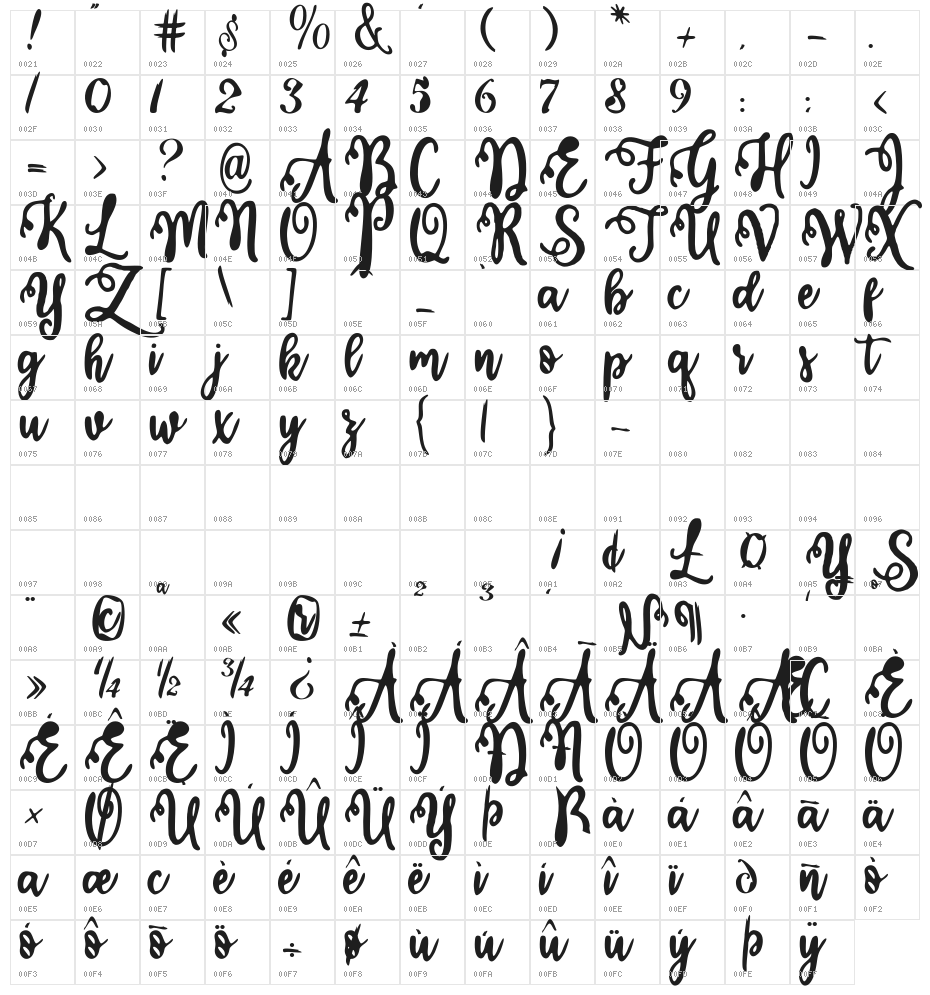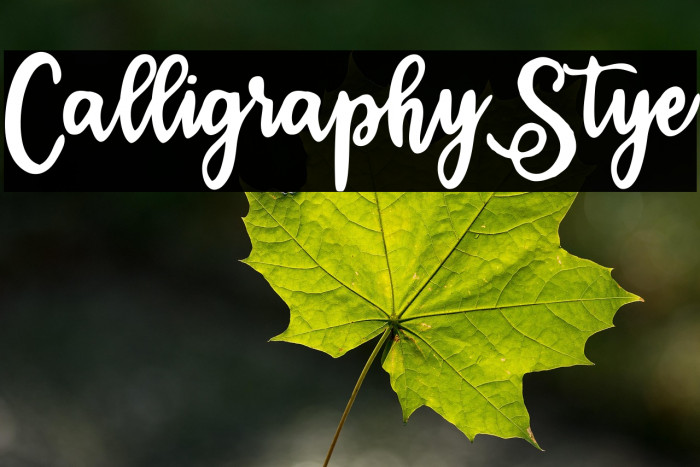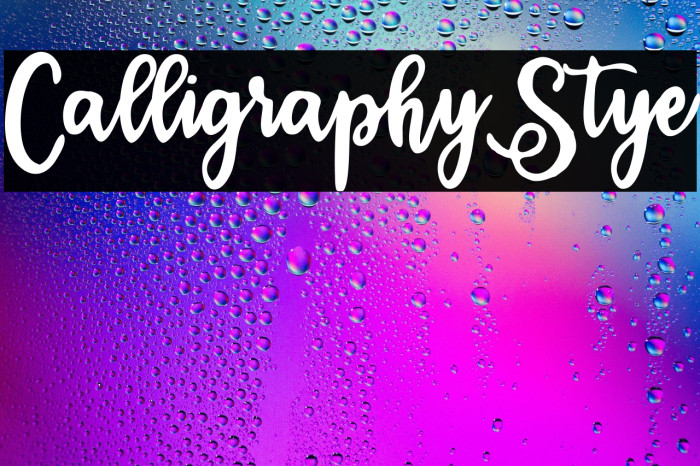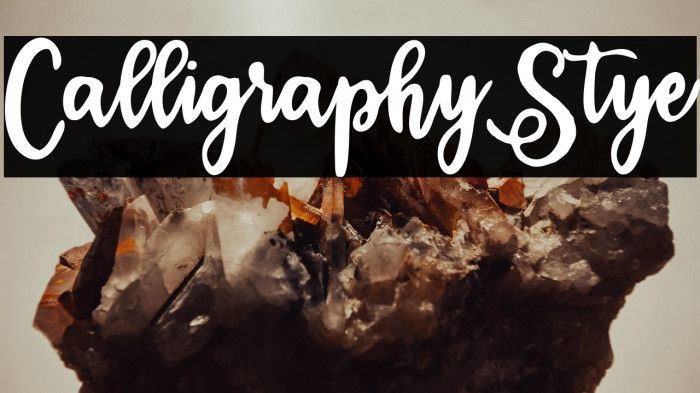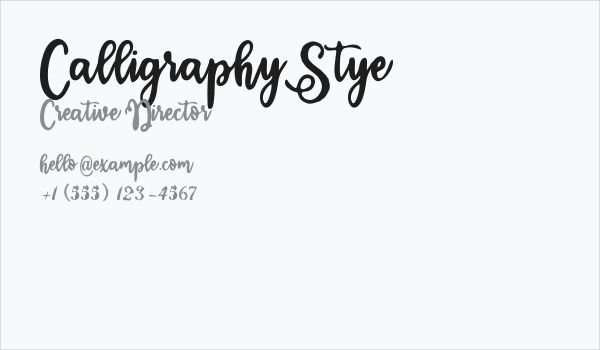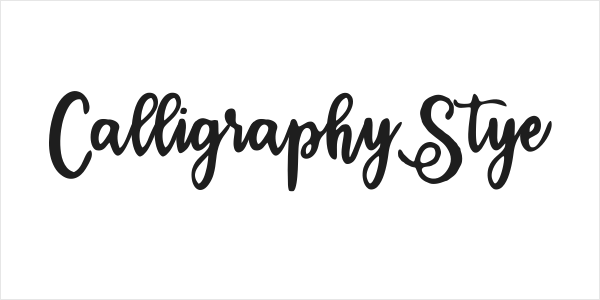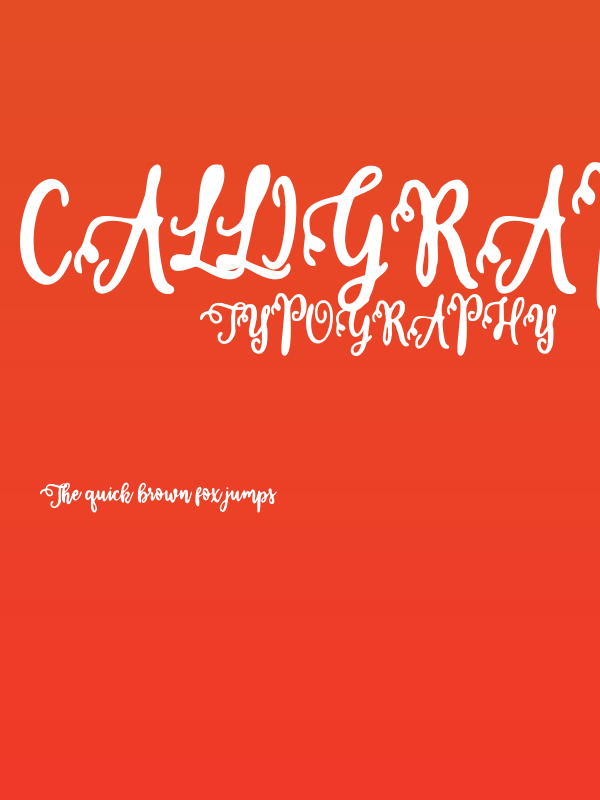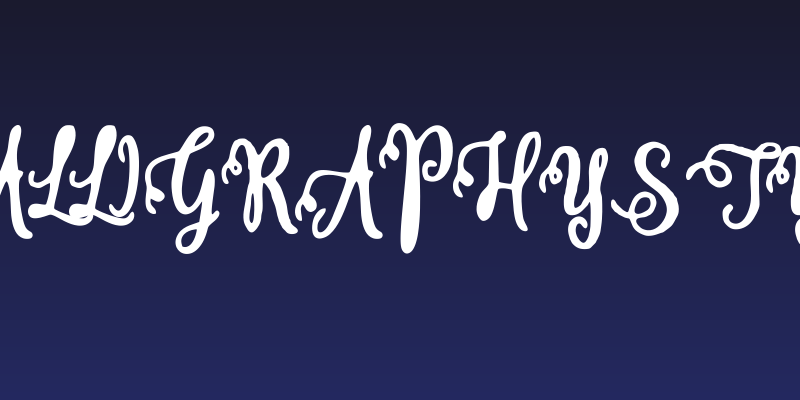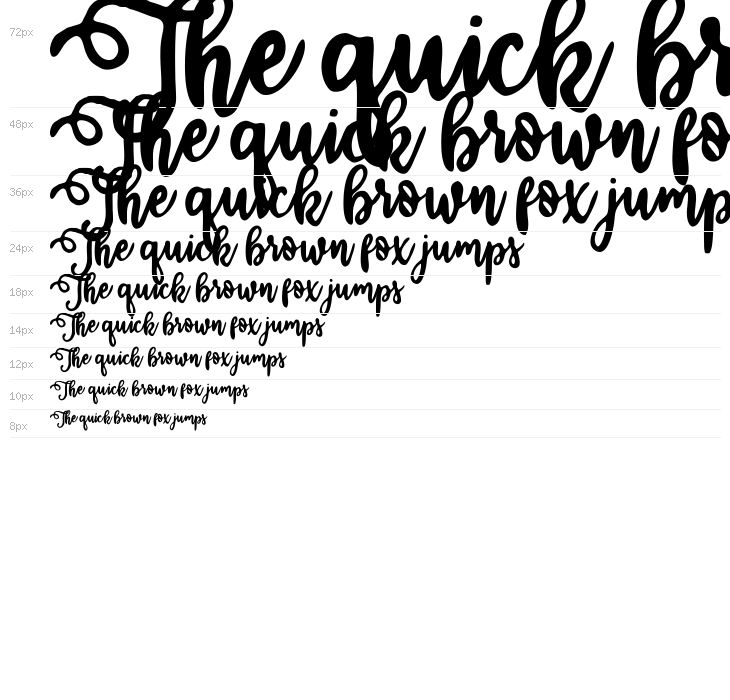
CalligraphyStye Font
CalligraphyStye Description
This font features an elegant and flowing calligraphic style, characterized by its intricate curves and flourishes. The uppercase letters are ornate, with each character displaying unique embellishments that add a sense of sophistication and artistry. The lowercase letters maintain a consistent fluidity, enhancing readability while preserving the decorative nature of the font. Numbers and special characters are designed to match the overall aesthetic, making them suitable for creative and artistic projects. The bold strokes and high contrast between thick and thin lines contribute to its striking appearance, making it ideal for attention-grabbing designs.
| Use Case | Logos, Headlines, Invitations |
| Proposed Projects | Ideal for wedding invitations, greeting cards, branding, and artistic posters. |